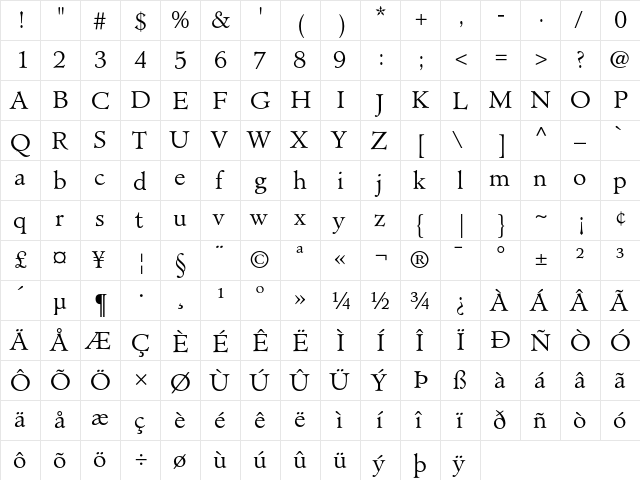
Minister Light
Design Context for Minister Typeface
Minister takes a measured approach to typography — its balanced proportions and neutral character make it a reliable workhorse for both digital and print work. Its slender proportions lend an understated elegance to any composition.